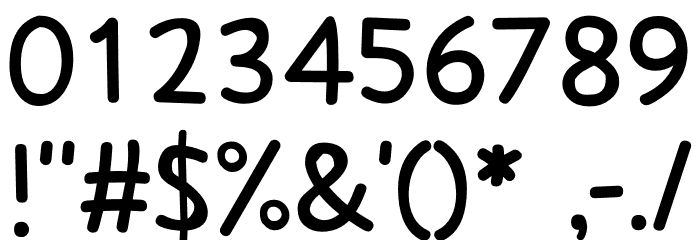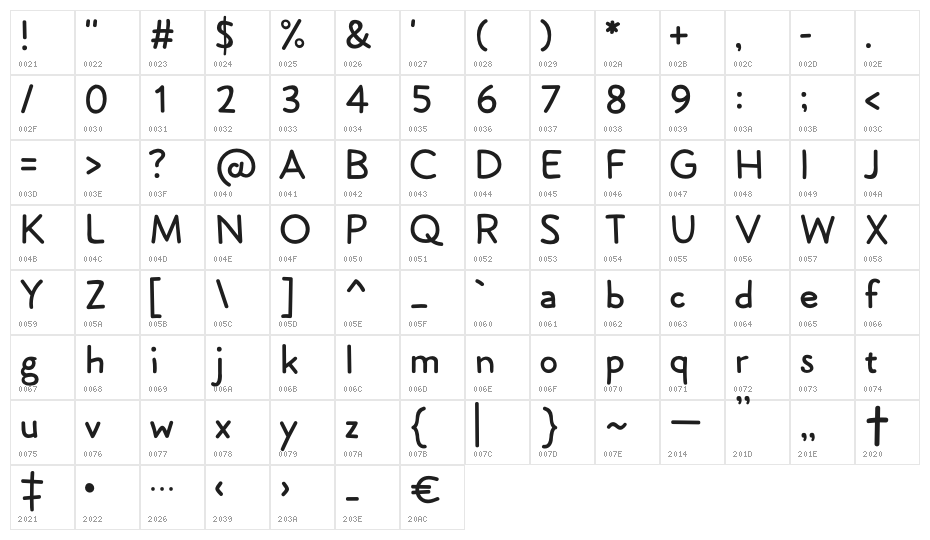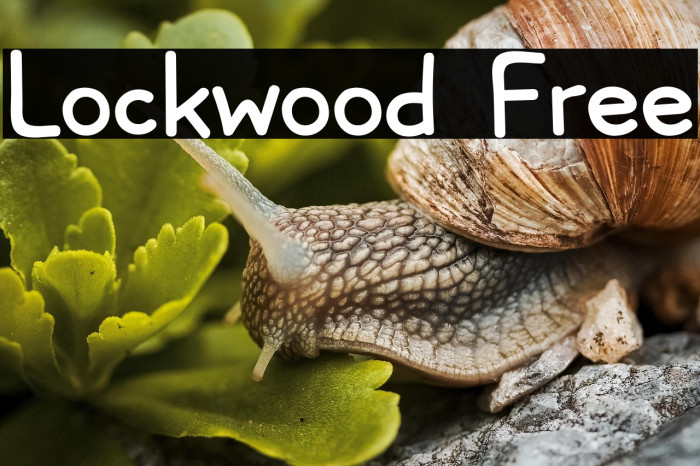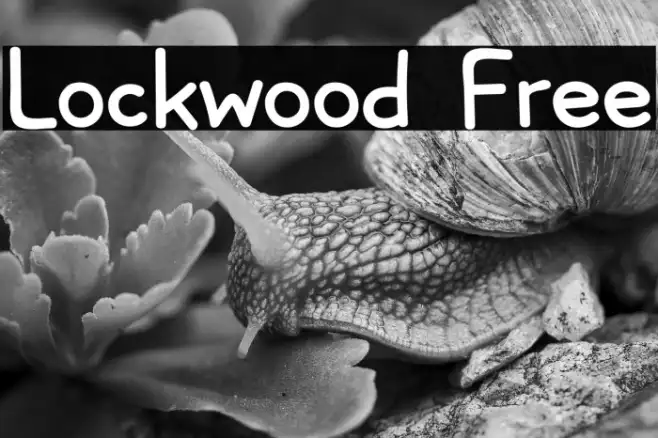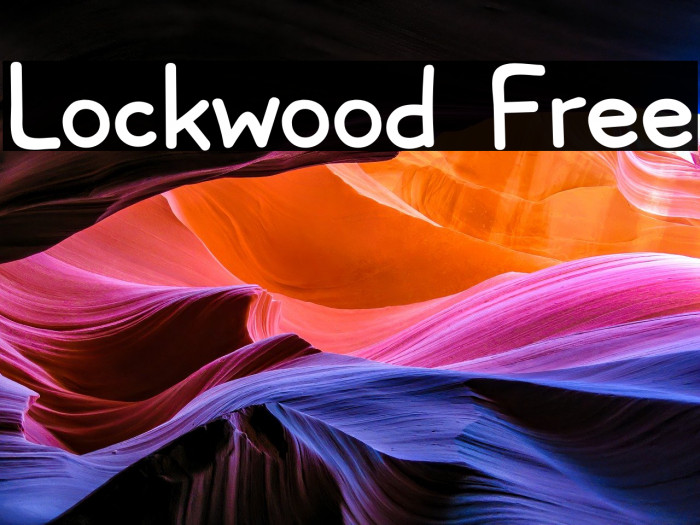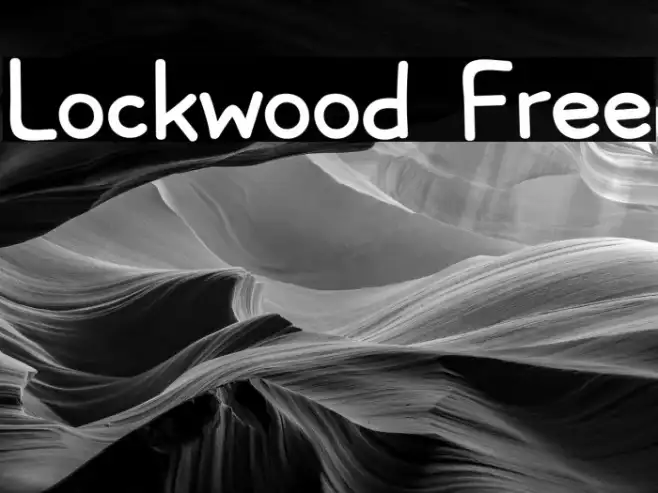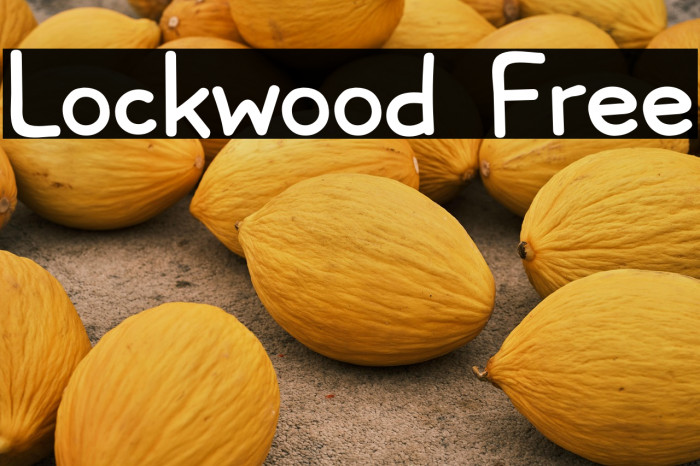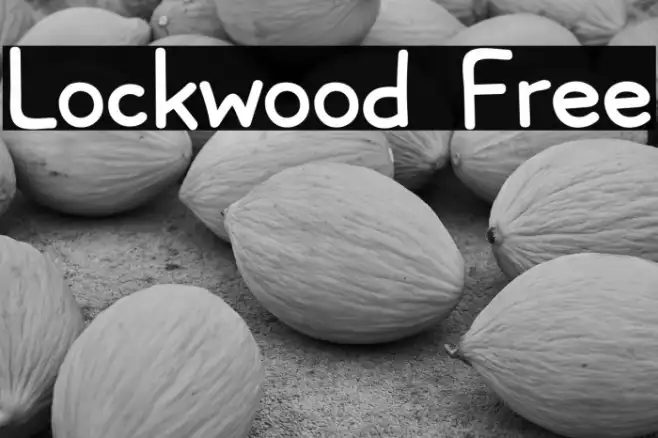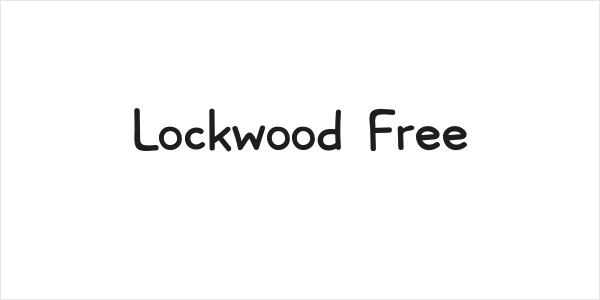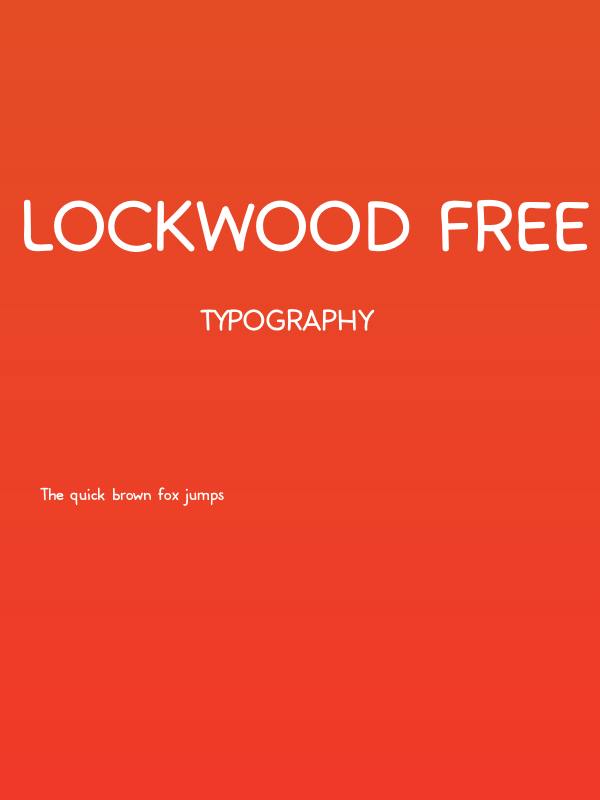
Lockwood Free Font
Lockwood Free Description
This font exhibits a playful and casual style with rounded edges and a hand-drawn appearance. The characters are slightly irregular, adding a whimsical and friendly touch. The uppercase and lowercase letters maintain a consistent stroke width, contributing to a uniform look. The numerals and special characters are designed to match the overall aesthetic, ensuring cohesion across all elements. This font's informal nature makes it suitable for projects that require a personal or approachable feel.
| Use Case | Logos, Posters, Informal Text |
| Proposed Projects | Ideal for children's books, greeting cards, casual branding, and playful posters. |